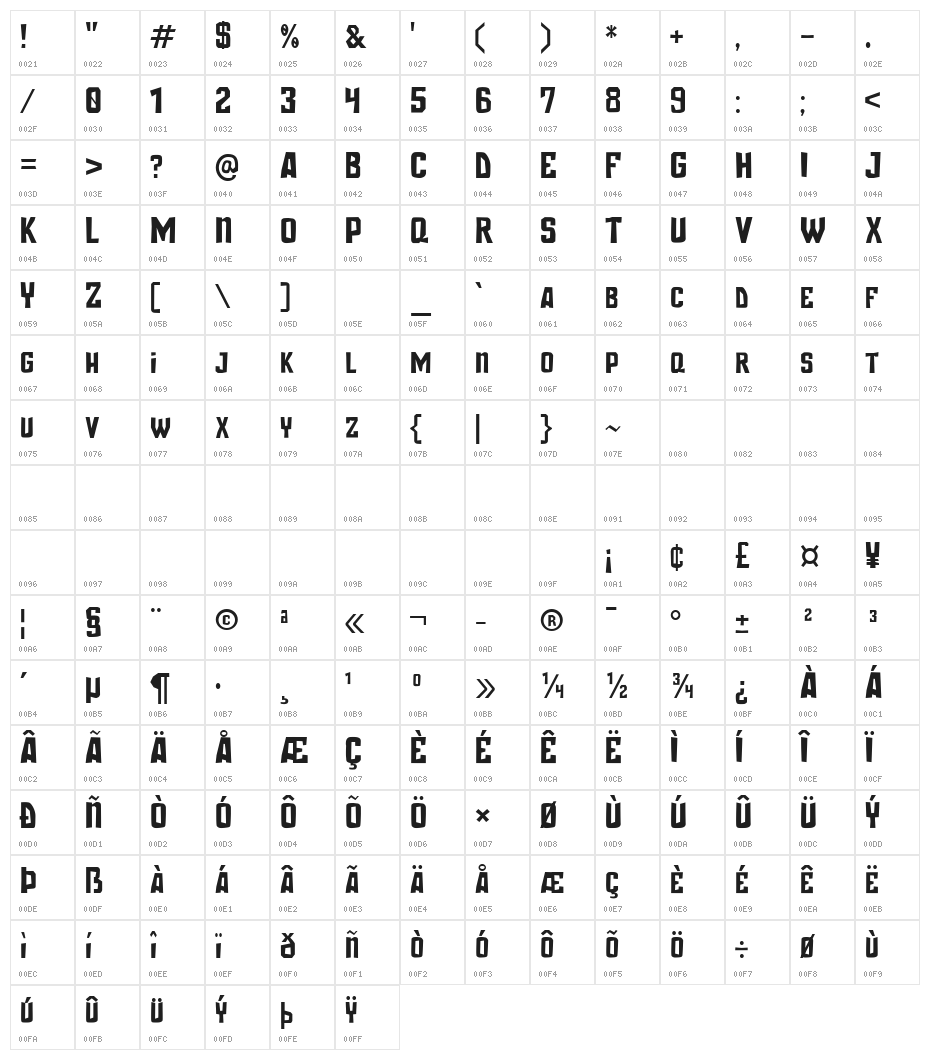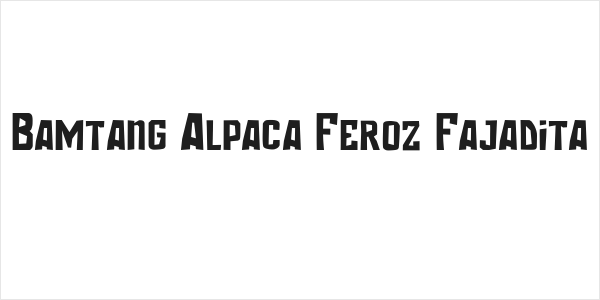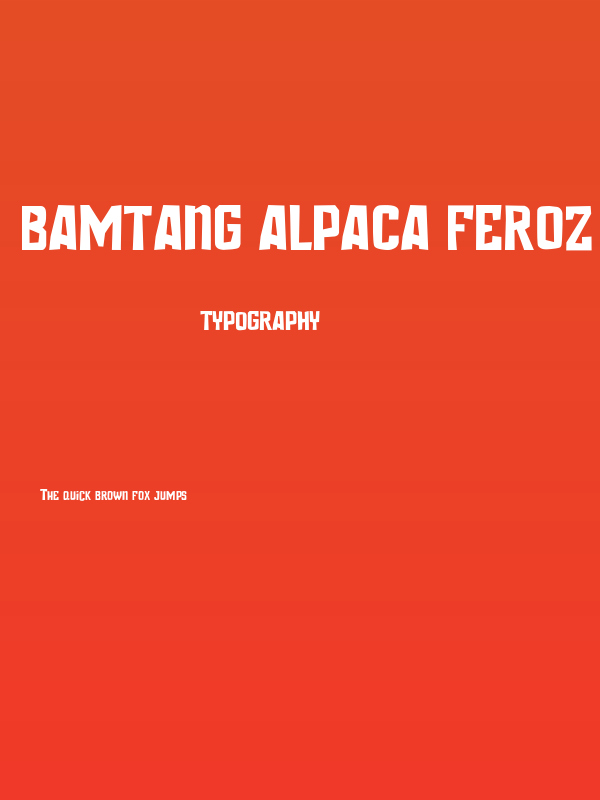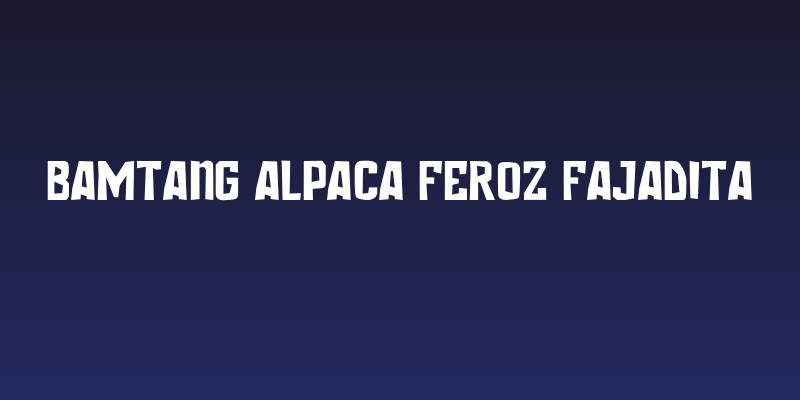
Bamtang Alpaca Feroz Fajadita Font
Bamtang Alpaca Feroz Fajadita Description
This font features a bold and dynamic style with a strong presence. The characters are designed with sharp angles and a slightly condensed form, giving it a modern and edgy appearance. The uppercase letters are particularly striking, with a geometric influence that adds to its contemporary feel. The lowercase letters maintain the same boldness, ensuring consistency throughout the typeface. Numbers and special characters are crafted with the same attention to detail, making them stand out. This font is ideal for projects that require a strong visual impact.
| Proposed Projects | Perfect for branding, posters, headlines, and any project needing a strong visual impact. |